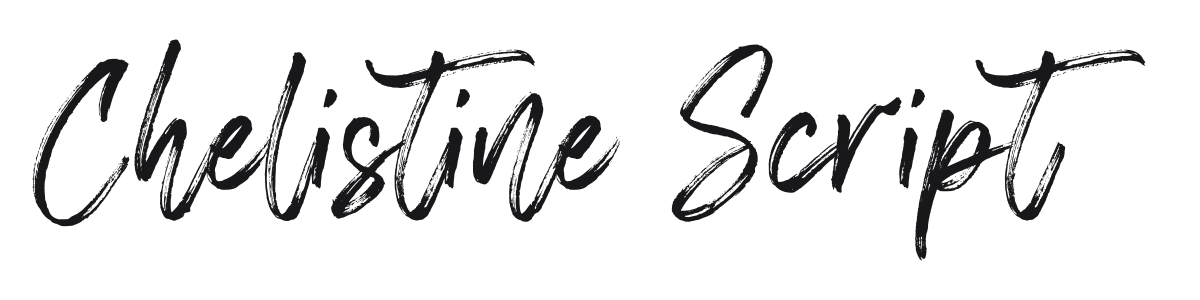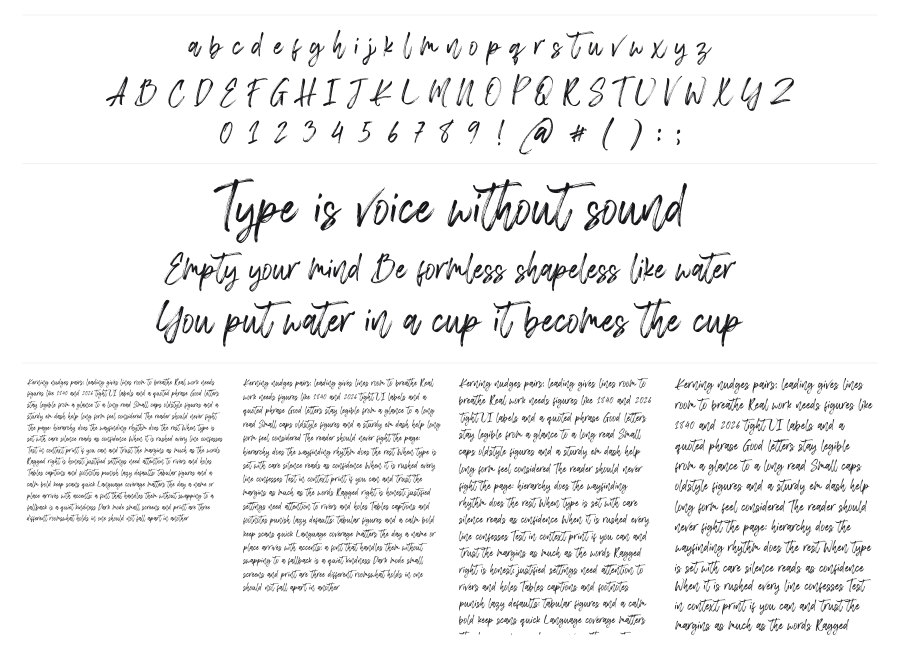
Chelistine Script
Chelistine Script is a casual brush script with heavy ink texture and confident, flowing strokes. The thick-to-thin contrast and bristle marks give it a genuinely handmade feel rather than a polished calligraphic one. Works well for beauty branding, editorial headlines, and packaging where a personal, organic touch is needed.